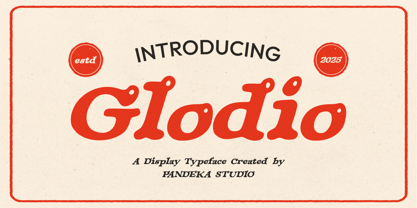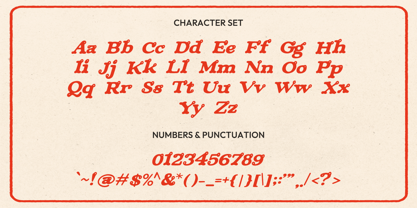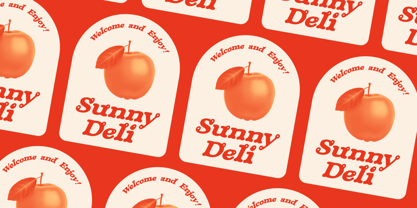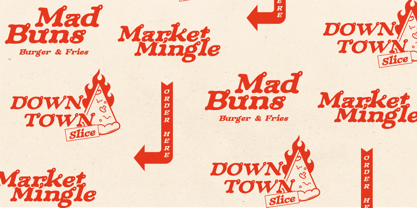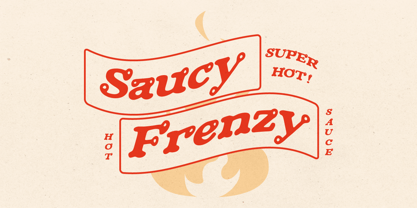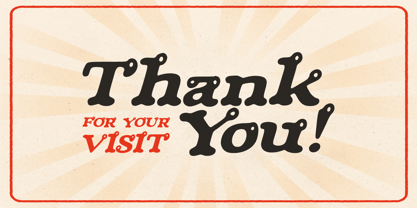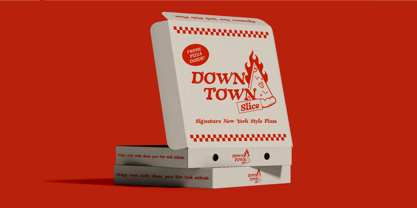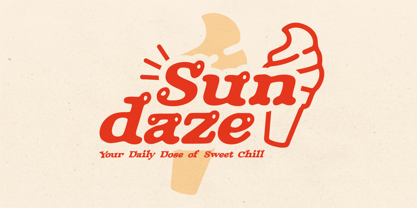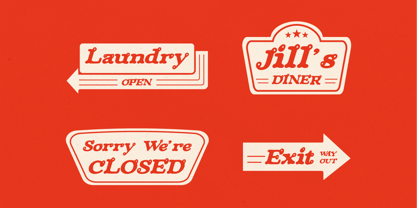
Glodio
by Pandeka Studio
The Glodio Font Family was designed by Sagara Nararya and published by Pandeka Studio. Glodio contains 1 styles. More about this family
Glodio – Vintage Retro Display Serif
Glodio is a display serif font with a vintage and retro style, bringing a classic and timeless feel. With its bold and stylish design, this font is perfect for logos, posters, branding, product packaging, and classic-themed designs. Its unique and eye-catching character makes it ideal for striking and attention-grabbing typography.
• Full Character Set: Uppercase, lowercase, numbers, symbols, and punctuation
Designers: Sagara Nararya
Foundry: Pandeka Studio